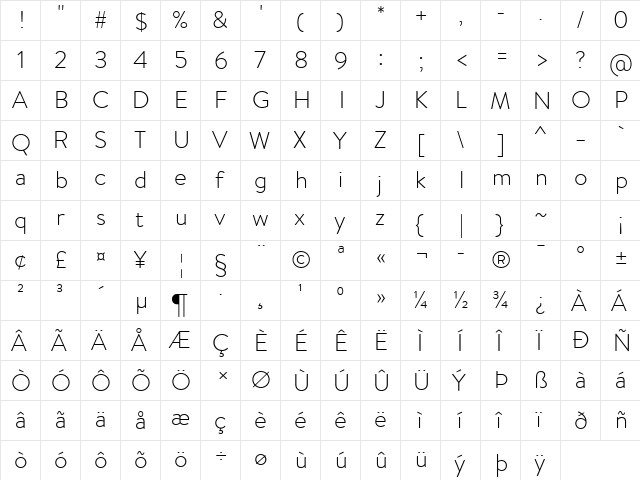
Brandon Text Light Regular
| Foundry | Hannes von Doehren |
| Designer | Hannes von Doehren |
Design Context for Brandon Text Light Typeface
Brandon Text Light is a composed and adaptable typeface that performs quietly and consistently across a wide range of design contexts. Its slender proportions lend an understated elegance to any composition.
Pro Tip: Pair Brandon Text Light with a font of contrasting weight or personality to build a more expressive typographic hierarchy.